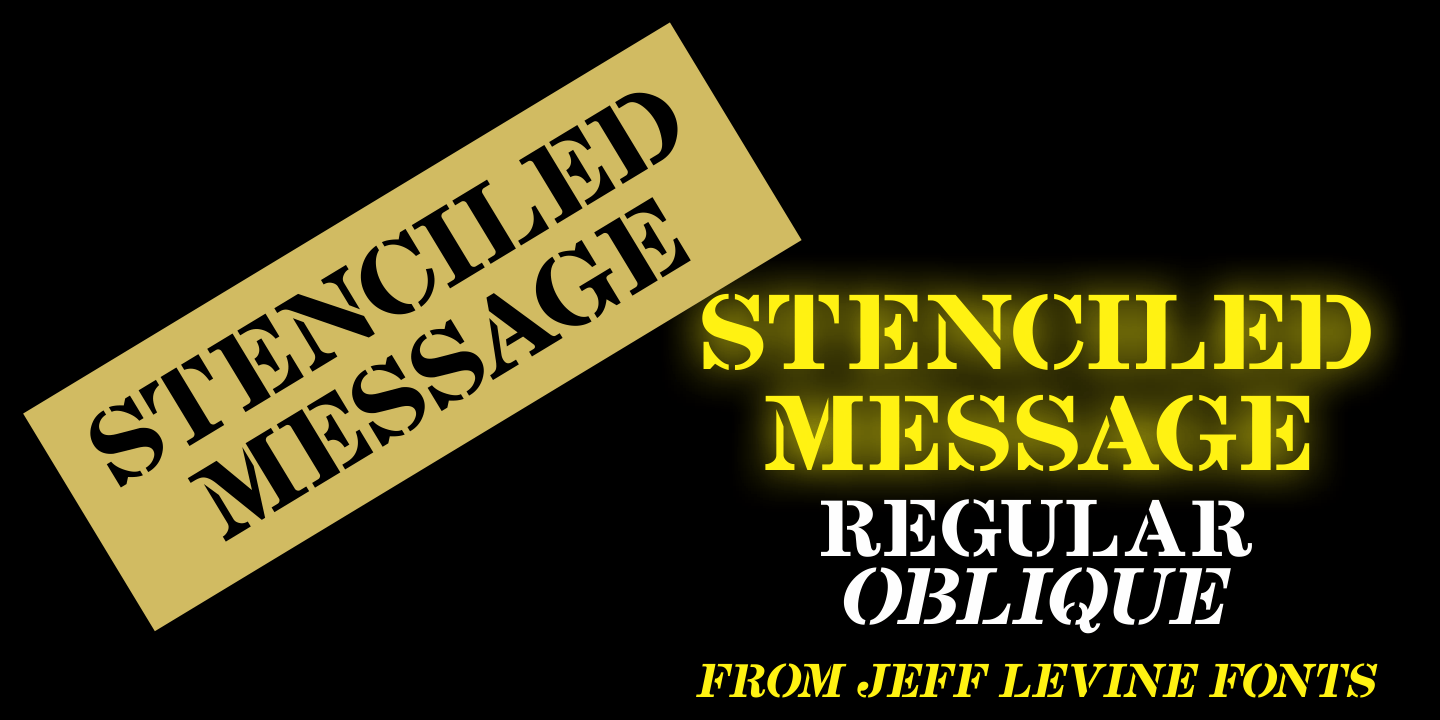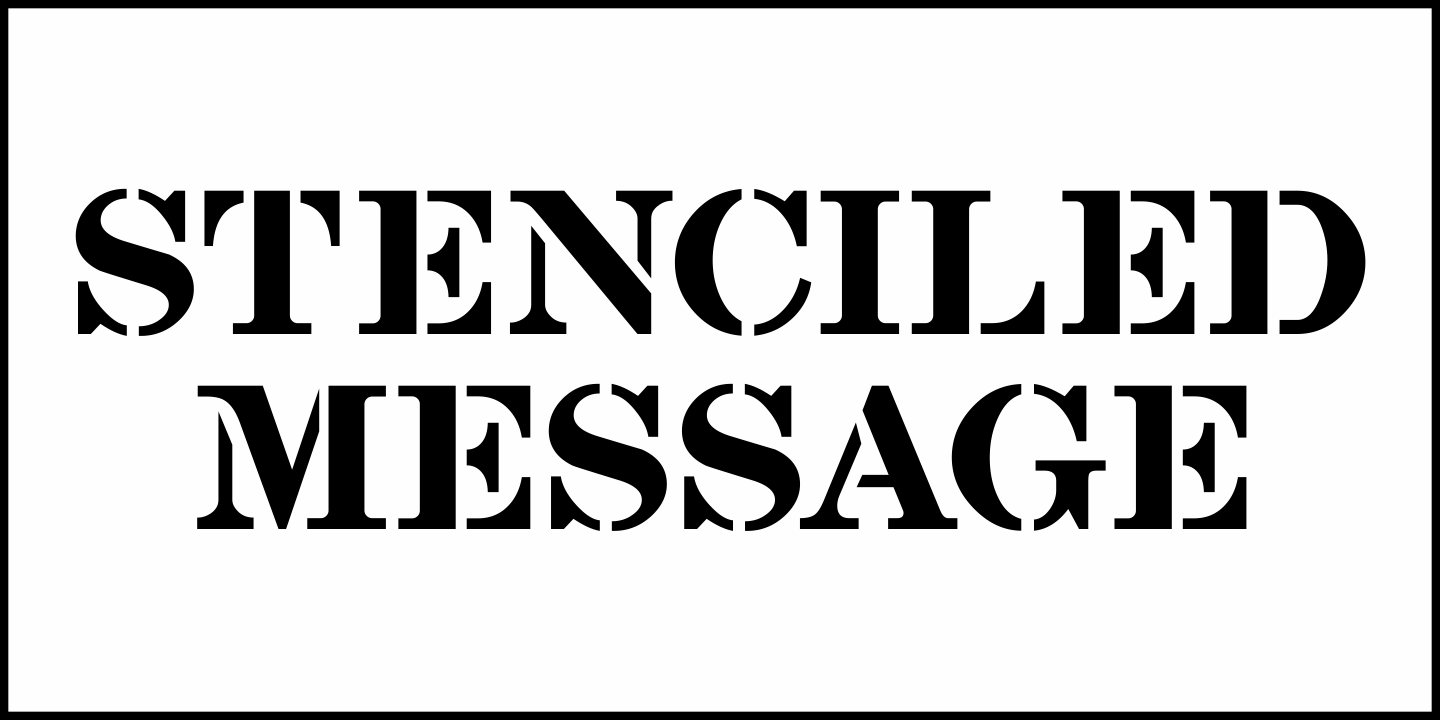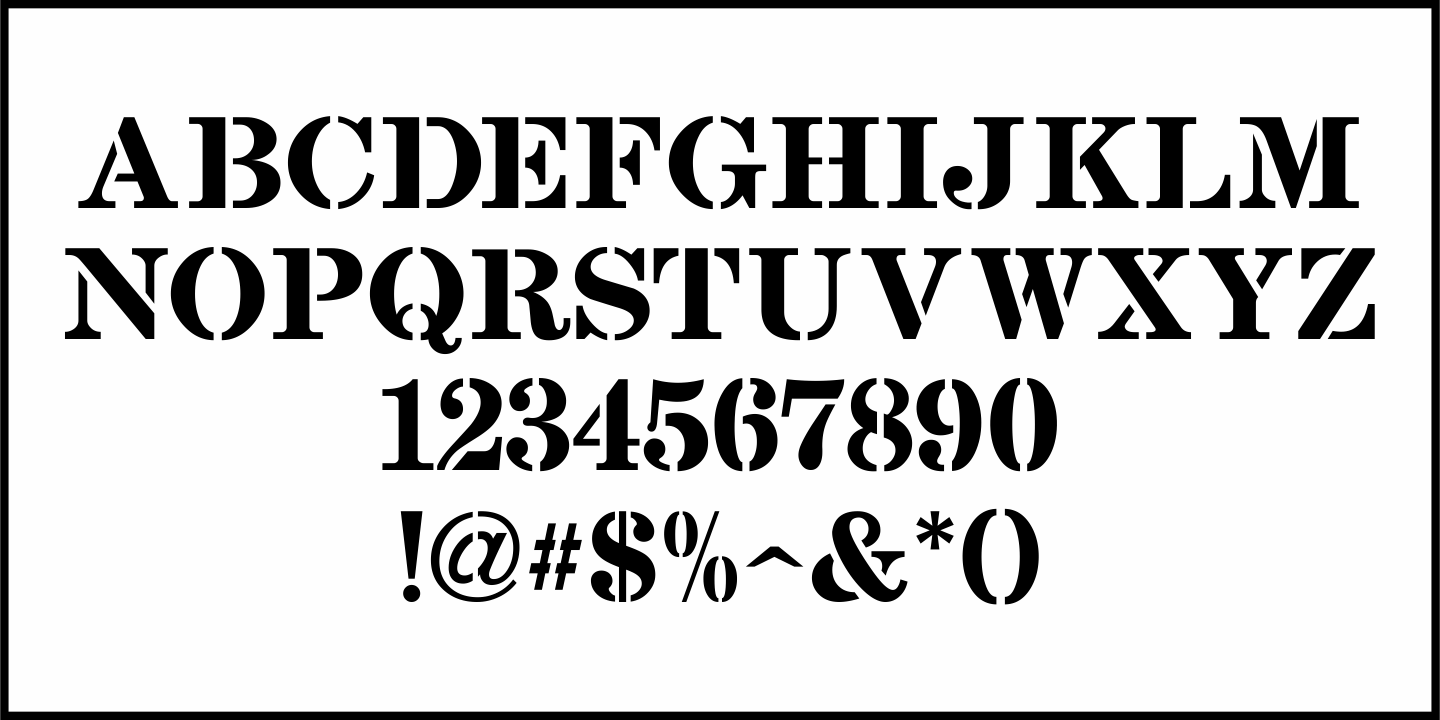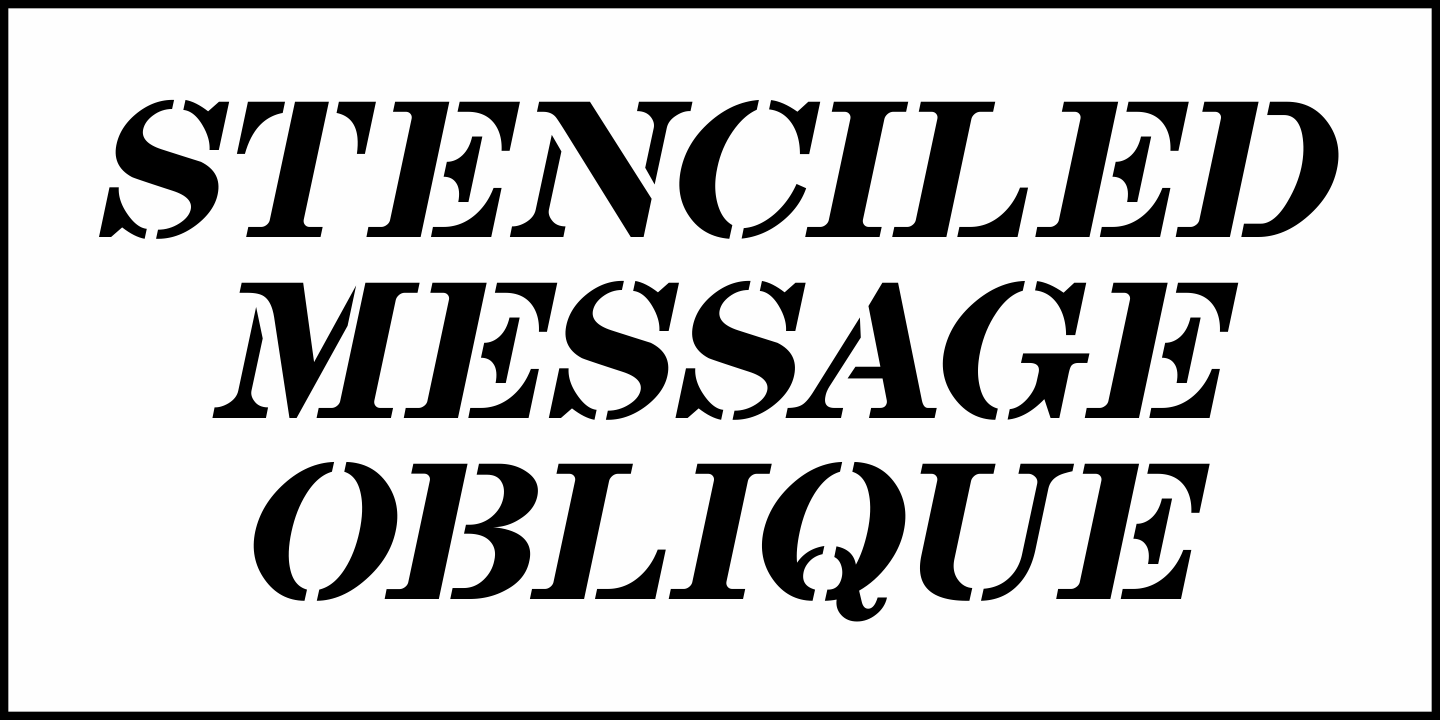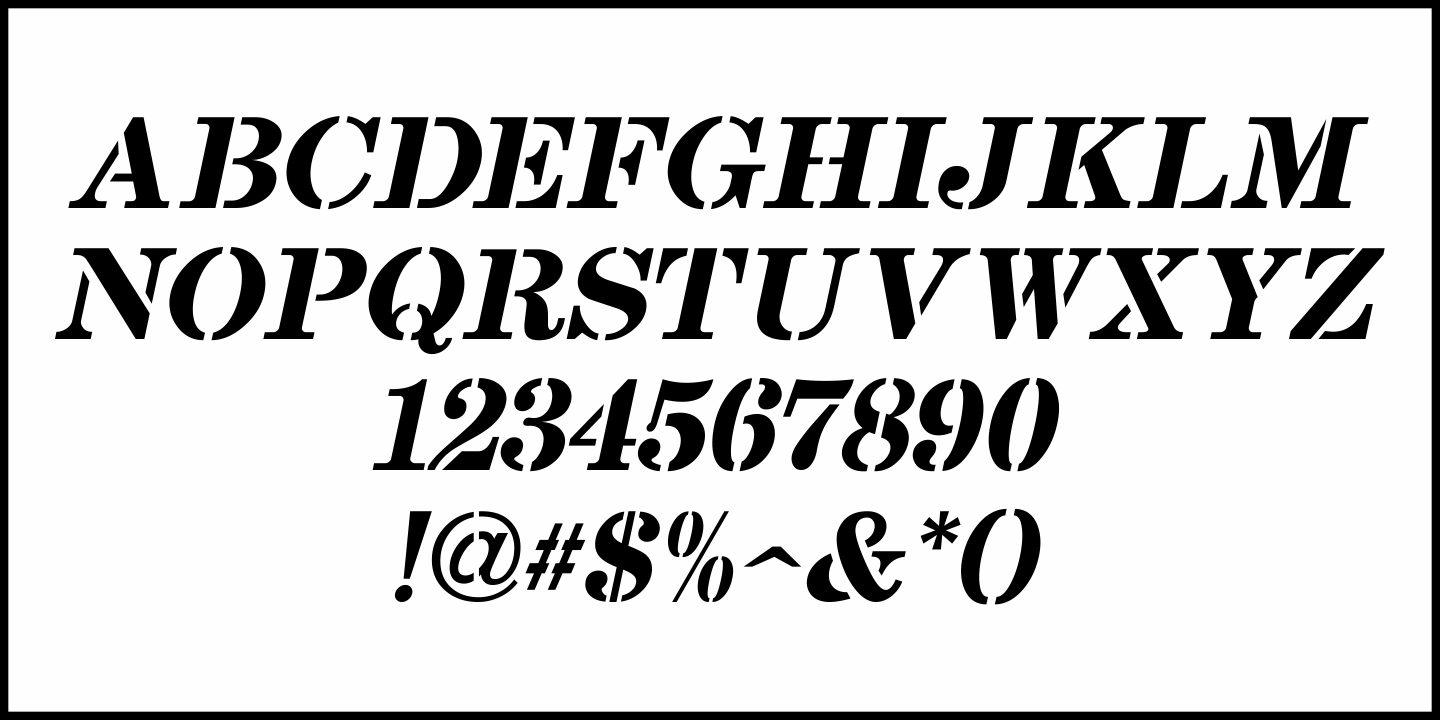
Stenciled Message
Inspired by an old retail stencil lettering guide, Stenciled Message JNL is a bold Roman serif typeface available in both regular and oblique versions.